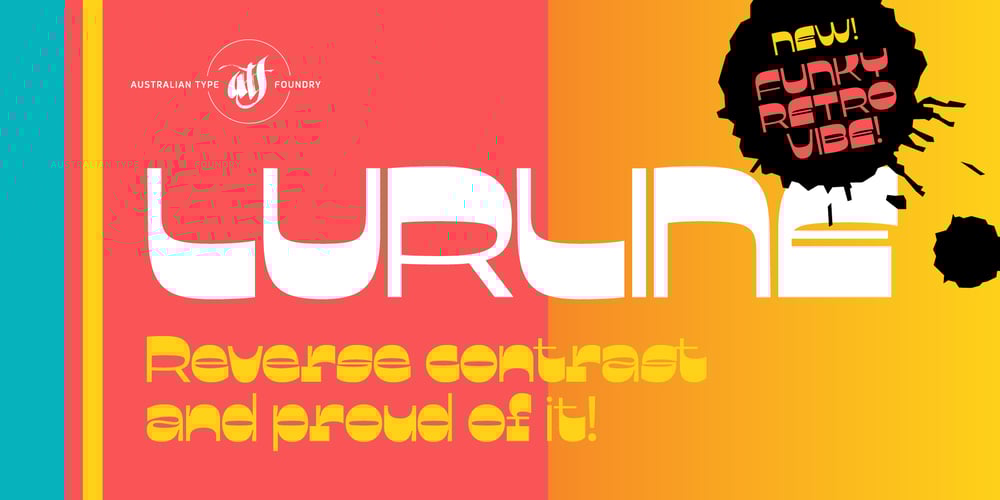
Lurline Font Family was designed by Wayne Thompson and published by Australian Type Foundry. Lurline contains 1 styles and family package options. With deliberately tight kerning, Lurline wears its retro vibe as a badge of honour. Lurline features extreme reverse contrast and stroke modulation and intentionally pushes legibility boundaries. Suitable for anything requiring a strident and flamboyant tone of voice.